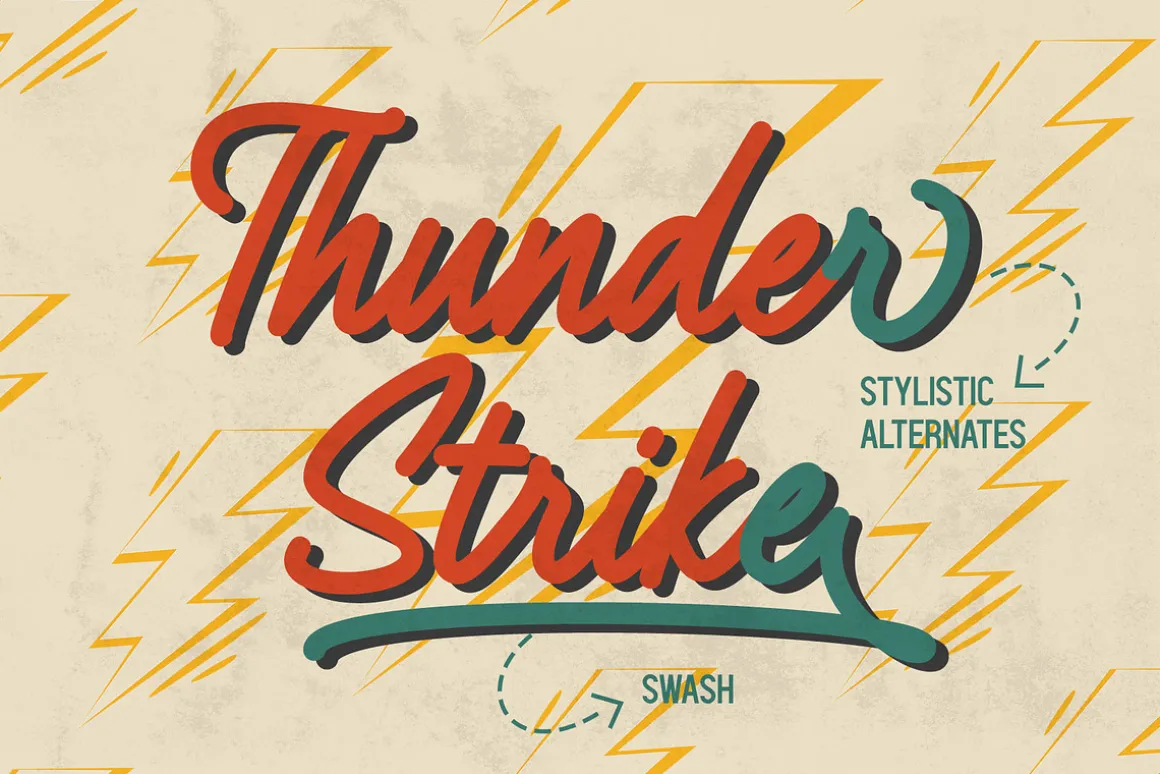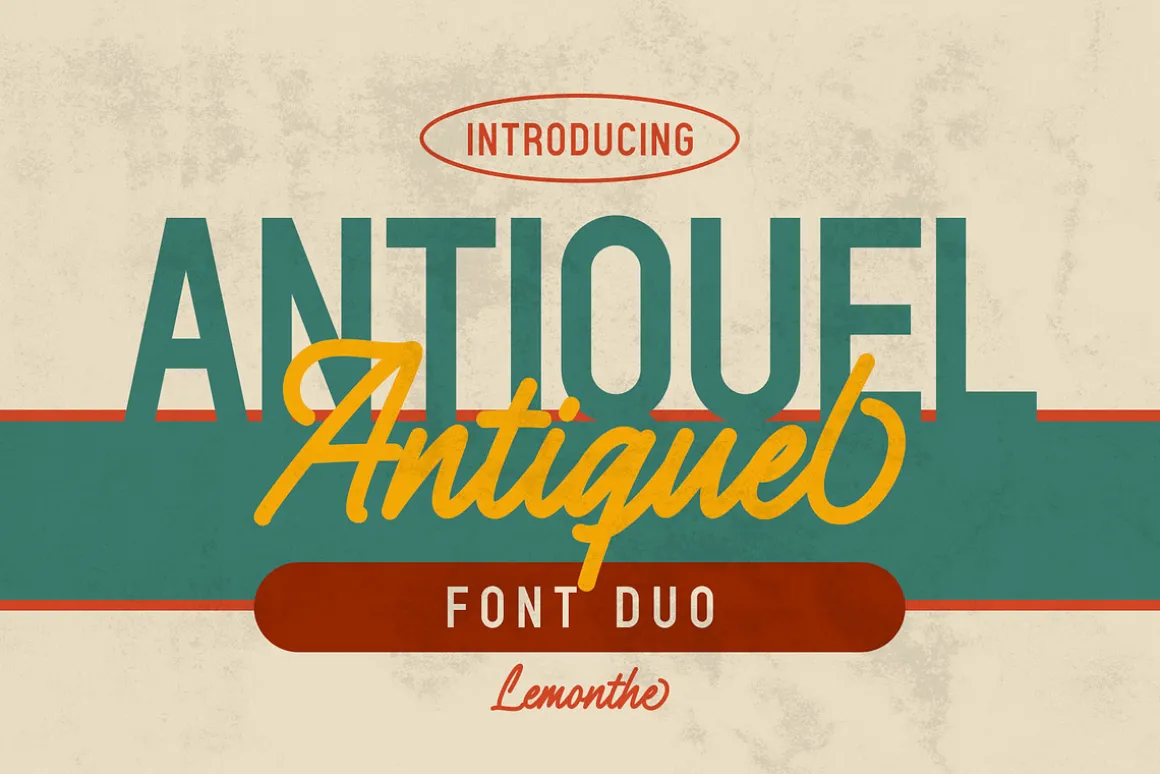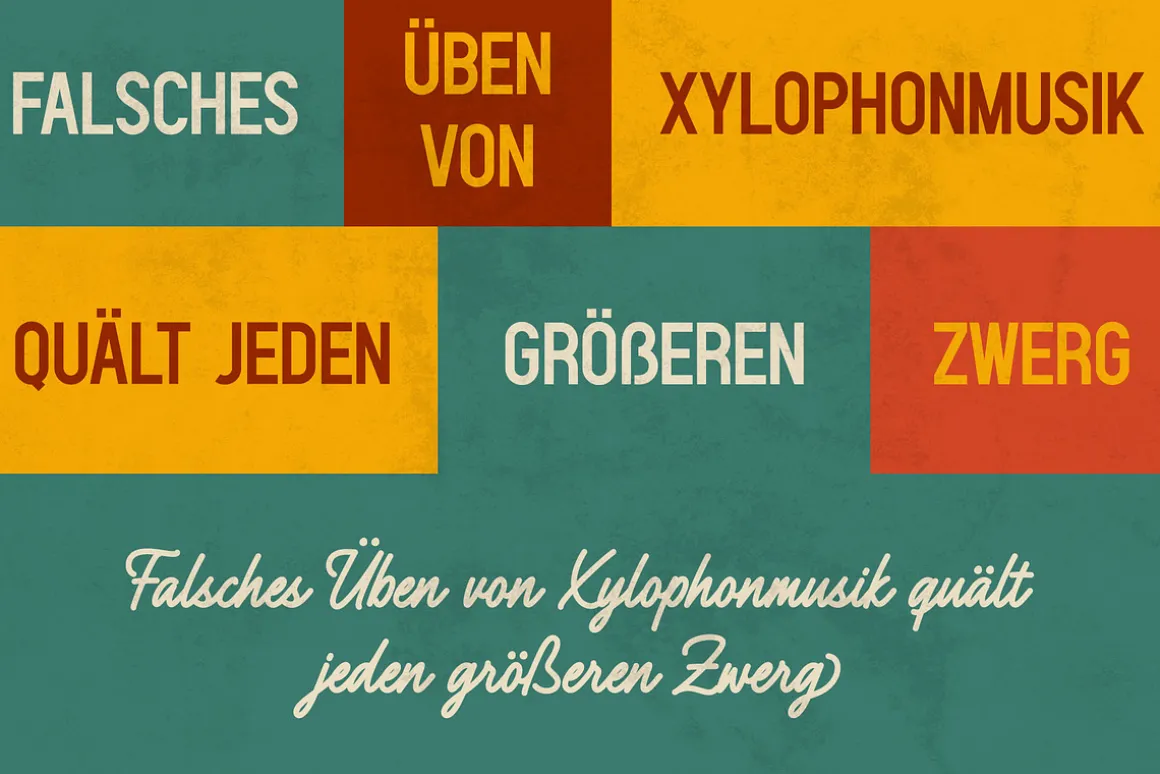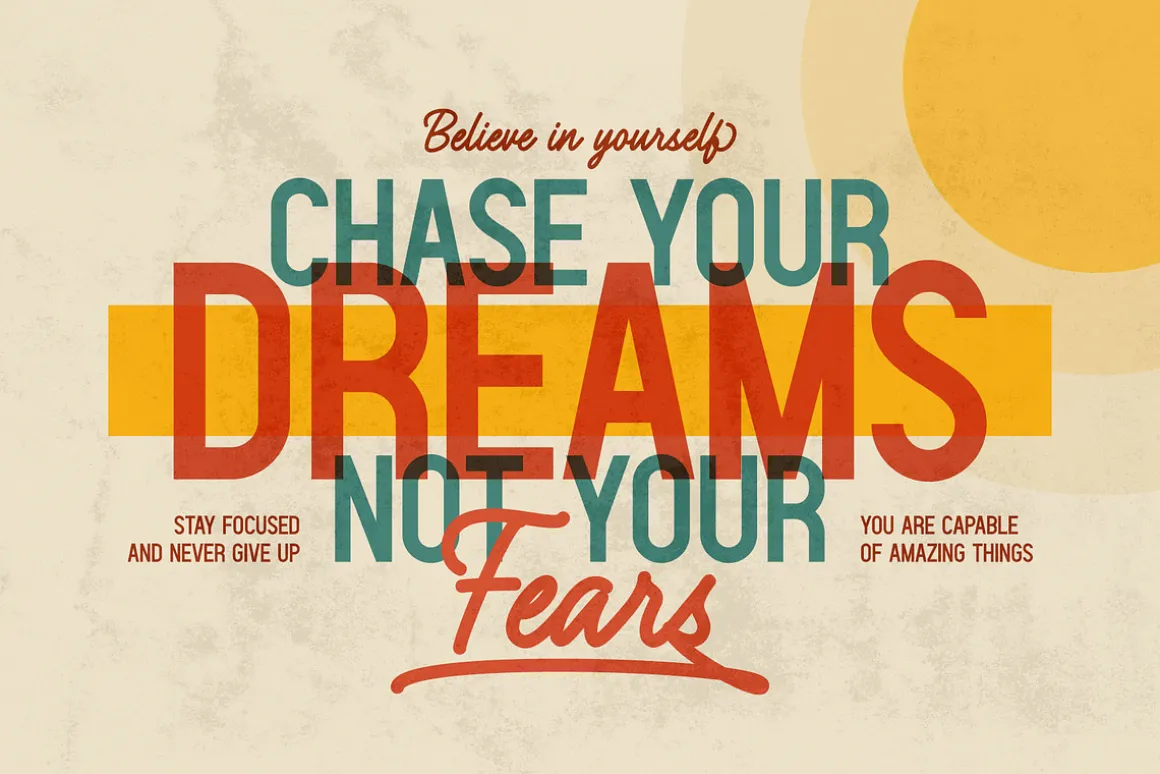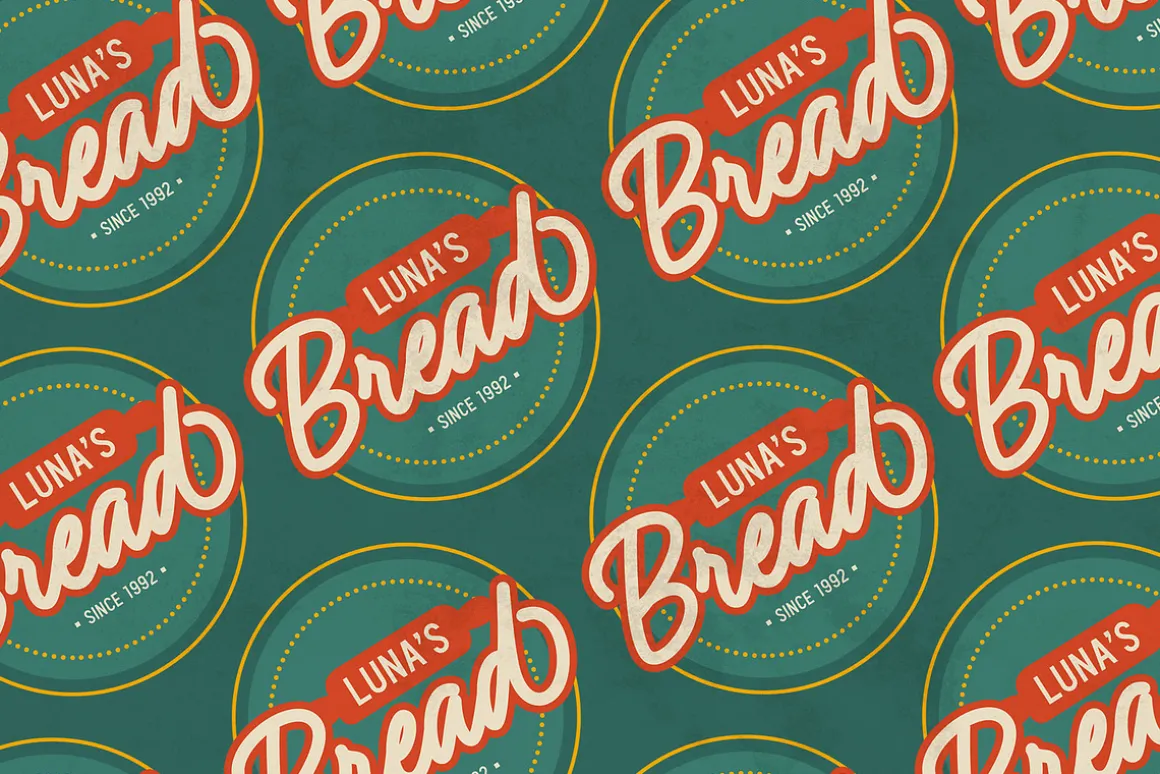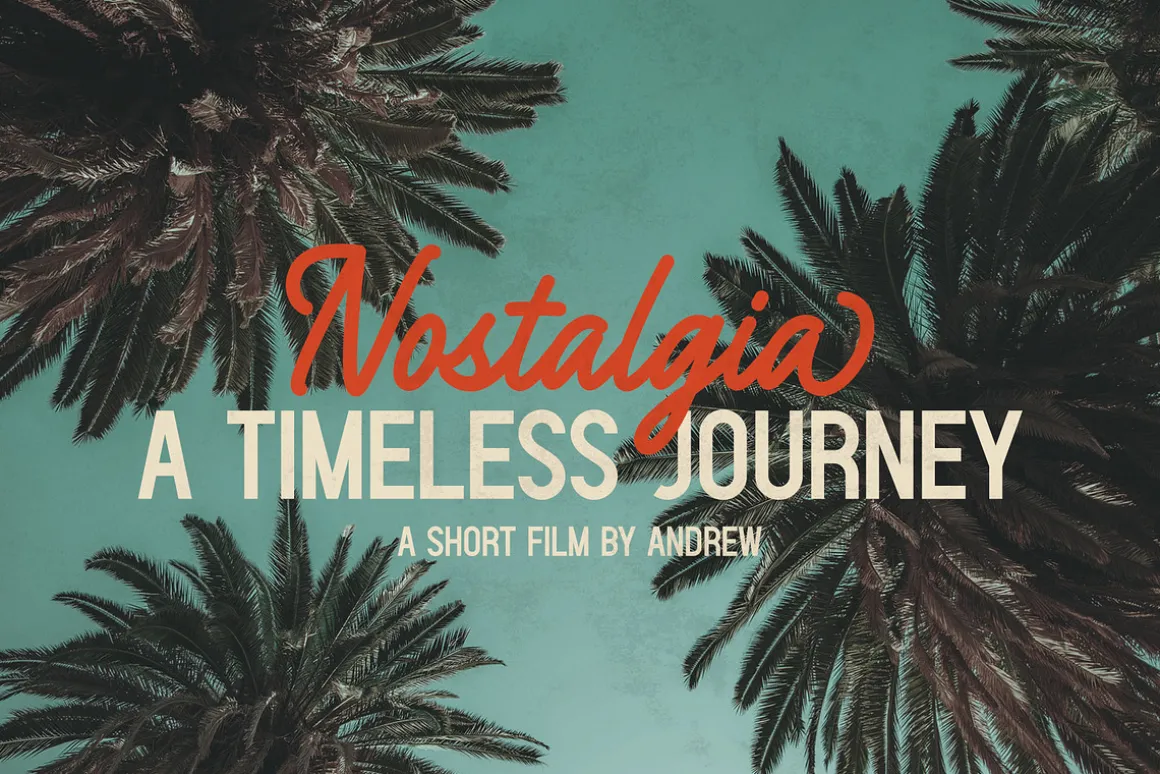
Antiquel Font Duo: Is the perfect combination of clean and modern all caps sans-serif style with a classic script touch. It’s suitable for creating various design projects such as logos, branding, labels, posters, titles, packaging, quotes, with a retro or modern style.
Features
- Swash
- Stylistic Alternates
- Numerals and Punctuation
- Multilingual Support